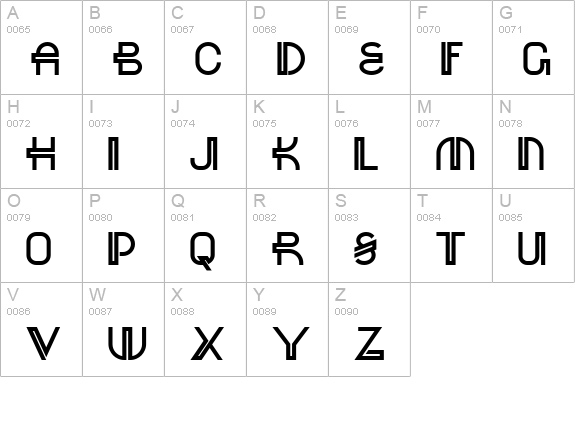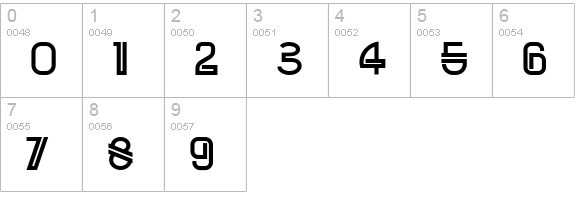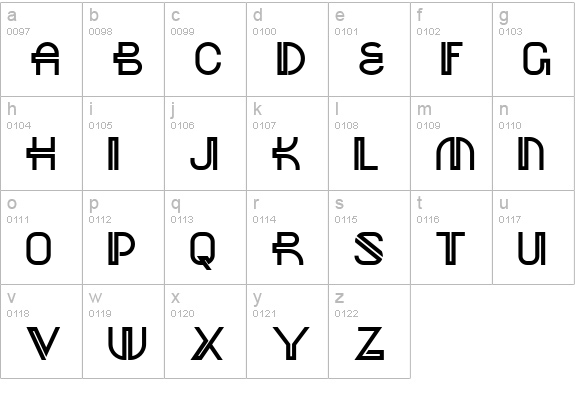
Red October NF Font Details
Red October NF font is a stunning display typeface that exudes a sense of boldness and modernity. With its sleek lines and sharp edges, this font is perfect for making a statement in headlines, logos, posters, and more. The eye-catching design of Red October NF will surely captivate your audience and leave a lasting impression. What's even better is that Red October NF font is available for free download at FontsMarket.com. This means you can easily access and use this striking font in your projects without any cost. Don't miss out on the opportunity to enhance your designs with Red October NF font today!